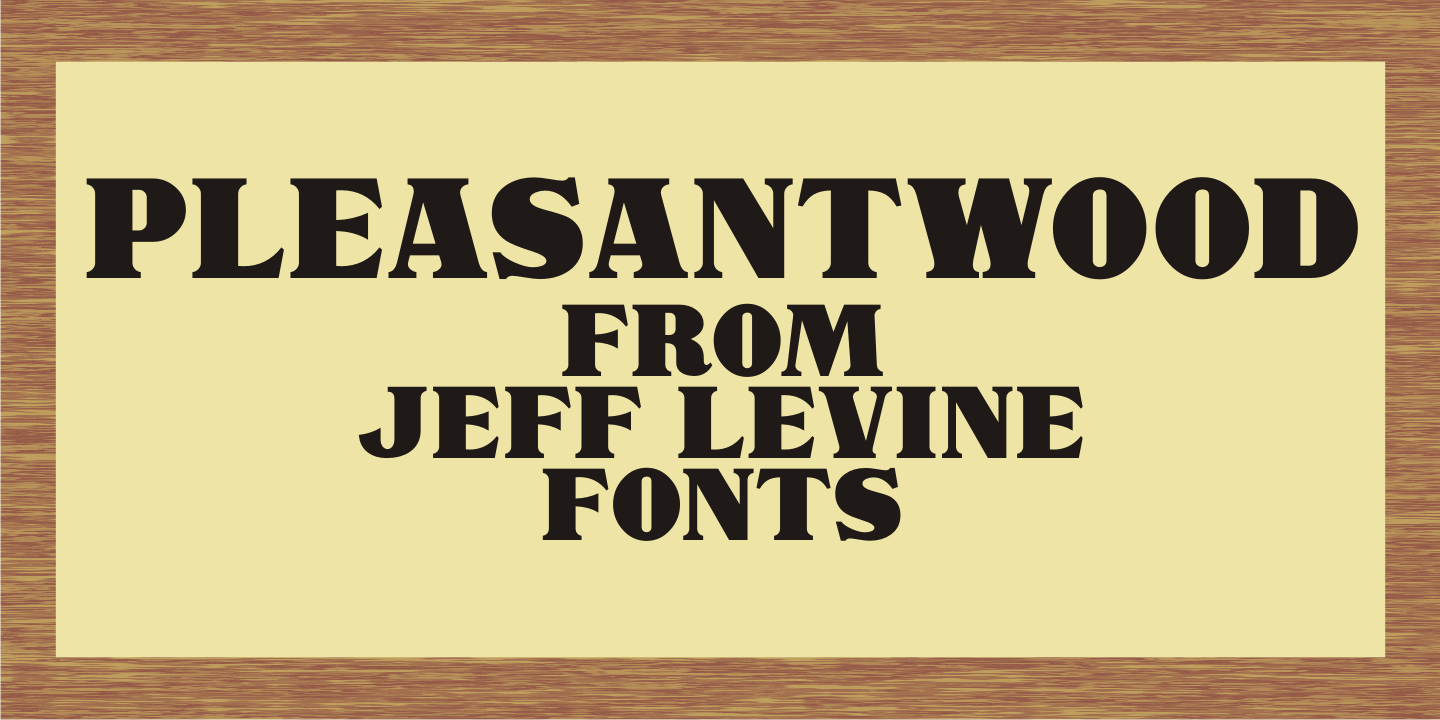
Pleasantwood
Pleasantwood JNL is the adaptation and interpretation of wood type examples featuring a bold serif face.
Although wood types were at their peak of use during the letterpress era of the late 19th and early 20th centuries, there is a growing revival movement of 'boutique' print shops who have embraced the look and texture of this form of printing.
More modern in design that many of its counterparts, Pleasantwood JNL is still a nice addition to the wood type library re-drawn digitally by Jeff Levine Fonts.